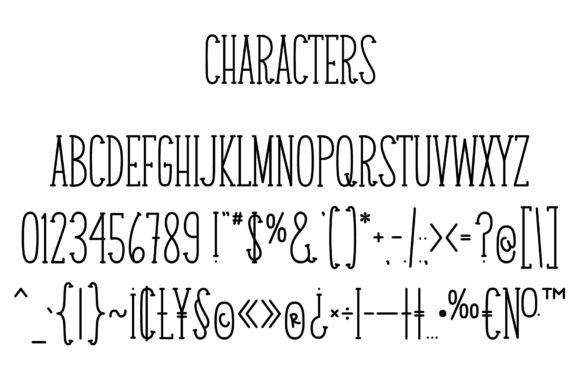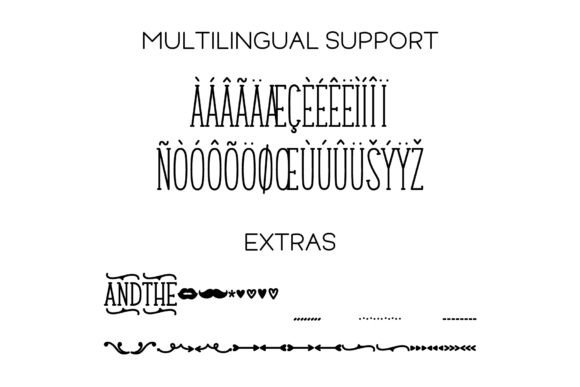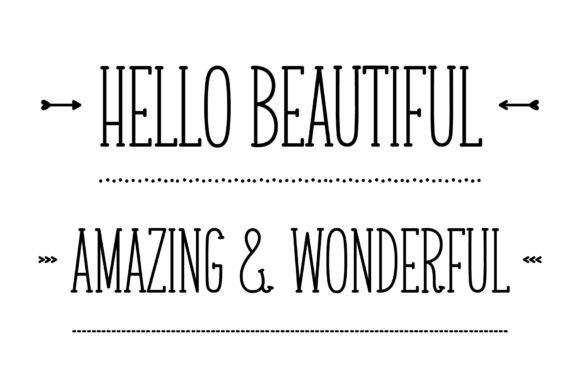
Mr. & Mrs. Right Now Font
Mr. & Mrs. Right Now is a stylish, yet fun handwritten serif font. Its unique charm and unusual coziness make it the right (!) choice for any design project you are working on. Plus, the lowercase characters contain some lovely decorative dingbats!